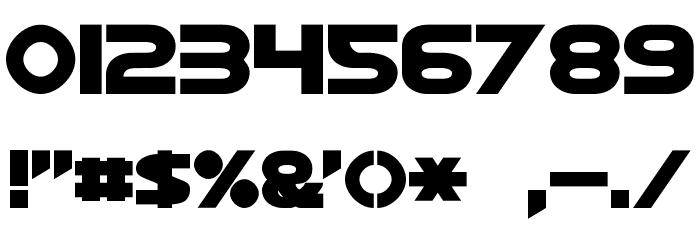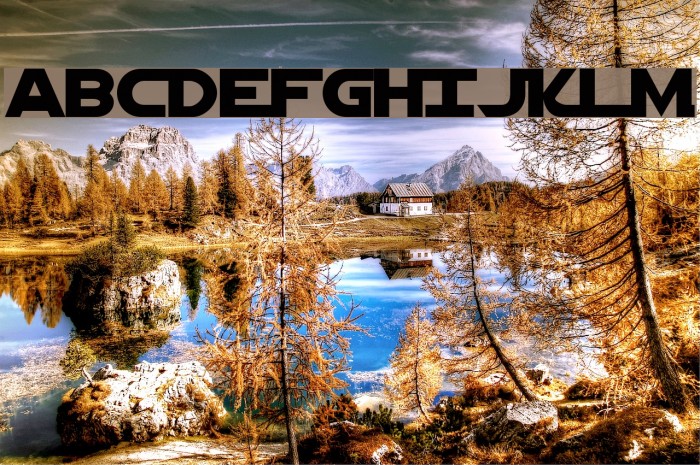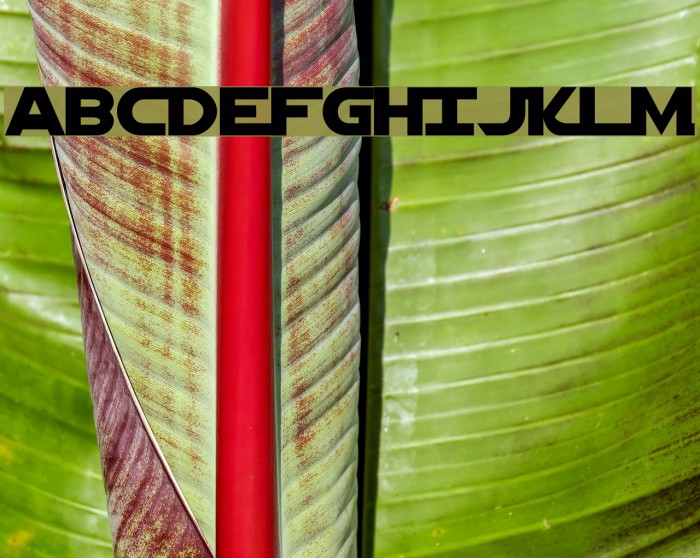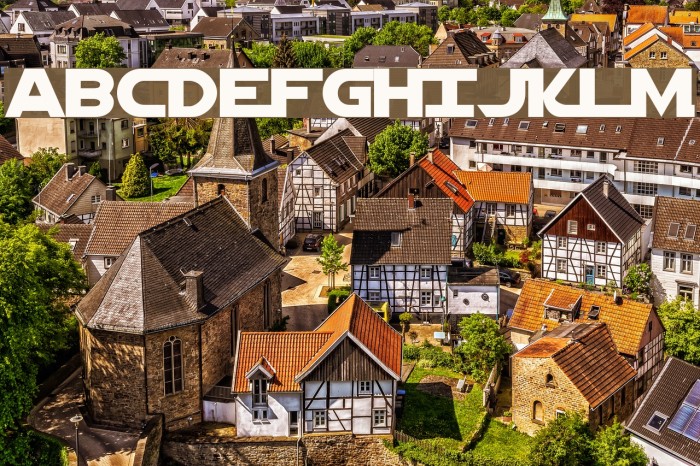
Jedi Solid Normal Font
Jedi Solid Normal Description
This font features a bold and futuristic design, characterized by its solid and geometric letterforms. The uppercase letters are particularly striking, with a strong presence and unique angular cuts that give it a modern, sci-fi aesthetic. The numbers and special characters maintain this bold style, ensuring consistency across all glyphs. The font's design is clean and impactful, making it suitable for attention-grabbing headlines or logos. Its distinct style is reminiscent of futuristic themes, making it ideal for projects that require a modern and edgy look.
| Proposed Projects | Ideal for sci-fi themed projects, movie posters, video game titles, and modern branding. |